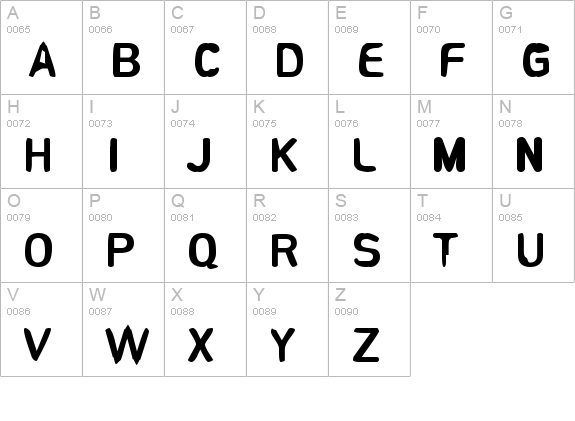
Runkspad Font Details
Runkspad font is a modern and stylish typeface that exudes elegance and sophistication. Its sleek lines and geometric shapes make it perfect for a wide range of design projects, from branding to editorial design. The font features a unique blend of sharp edges and smooth curves, giving it a distinctive and eye-catching look. What sets Runkspad font apart is not only its stunning design but also the fact that it is available for free. That's right, you can download this beautiful font at no cost from FontsMarket.com. Whether you're a professional designer looking to add a new font to your collection or a hobbyist looking to enhance your creative projects, Runkspad font is a fantastic choice that won't break the bank. Don't miss out on this opportunity to elevate your designs with this gorgeous and versatile typeface.